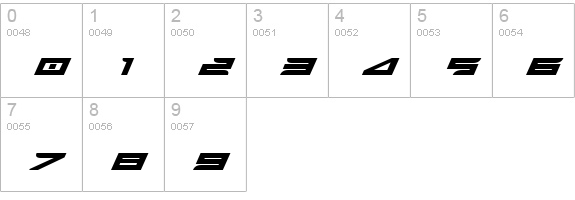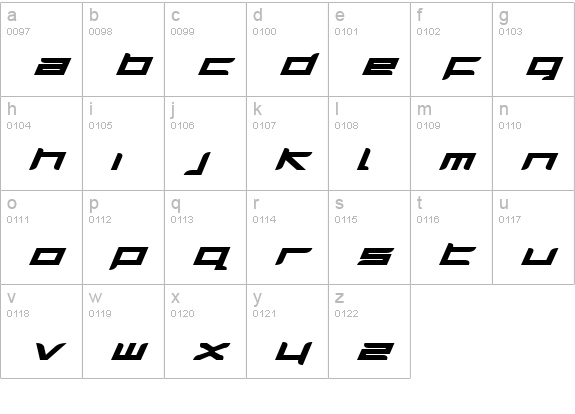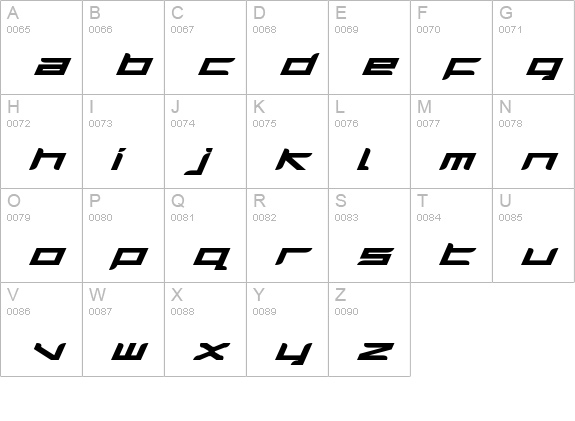
Harrier Bold Expanded Italic is a strong, high-contrast, extended-width, italic variant in the Harrier typeface family \xE2\x80\x94 well suited to headlines, attention-grabbing titles, and strong calls-to-action.
Harrier Bold Expanded Italic font is a visually striking and versatile typeface that combines the boldness of its design with an elegant italic style. This font adds a unique touch to any project, whether it be for headings, logos, or branding materials. With its expanded width and slanted strokes, Harrier Bold Expanded Italic exudes a sense of modernity and sophistication. Its strong presence and distinctive letterforms make it ideal for creating impactful designs that demand attention. What sets Harrier Bold Expanded Italic font apart is not just its bold and italic style, but also its availability. This font is freely available to download at FontsMarket.com. This means that designers, creatives, and typographers can easily access and use this font in their projects without any constraints. Whether you are working on a personal project or a professional assignment, Harrier Bold Expanded Italic font offers endless possibilities. Its unique combination of boldness, expansiveness, and italic style creates an eye-catching and memorable visual experience. Don't miss the opportunity to enhance your designs with this exceptional font, freely available at FontsMarket.com.